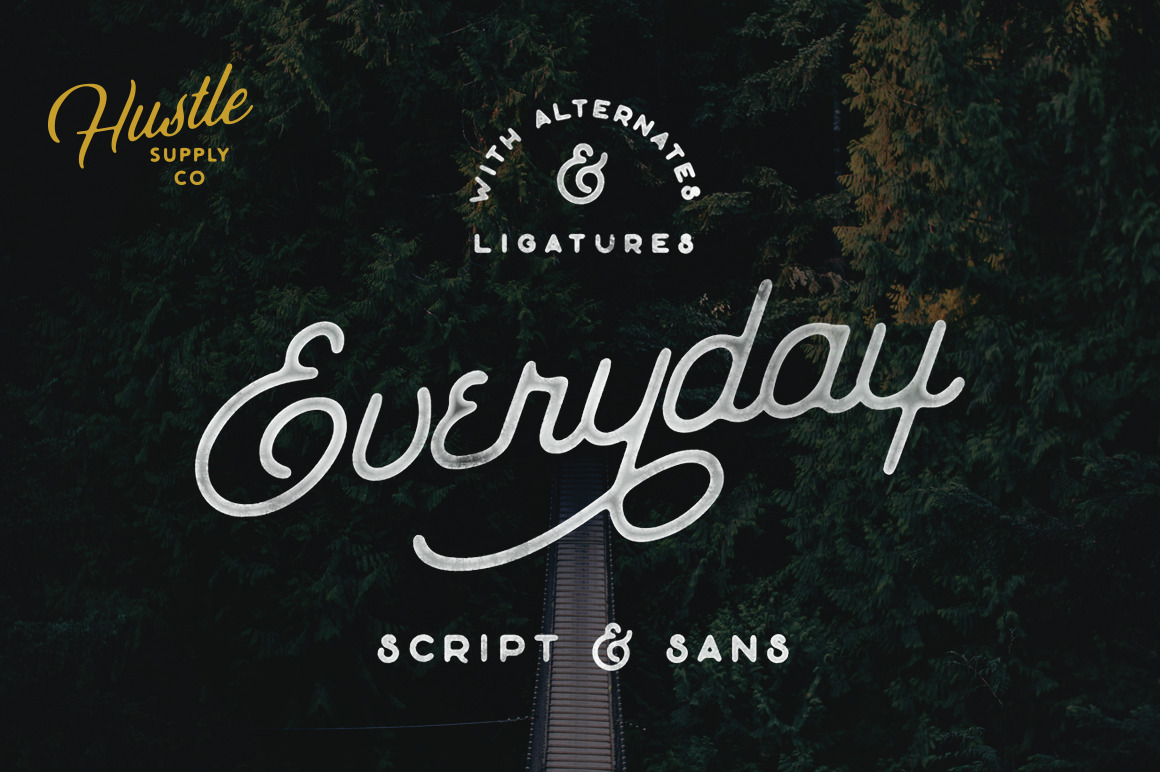
The Everyday Font Duo
This font duo comes with a mono line script typeface as well as a sans serif typeface. Both typefaces compliment each other very well with their rounded inky feel.
Everyday Script comes with many different stylistic alternate swashy characters to give your brand, advertisement, logo, etc a unique look that can be combined to make custom ligatures fairly easily.
Everyday Sans comes with western characters and a great pairing typeface with the script!